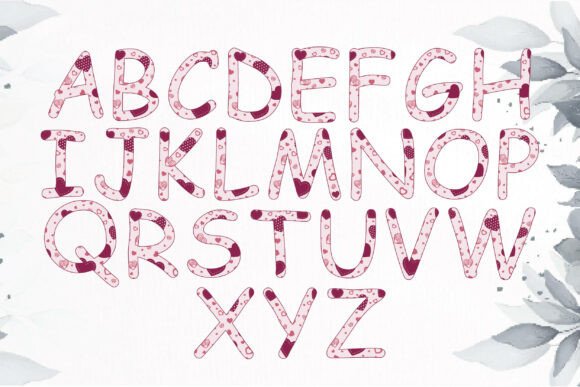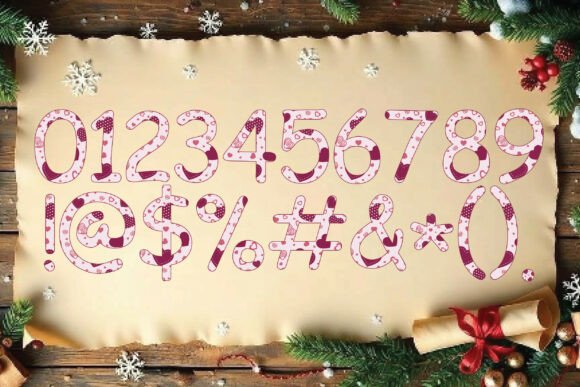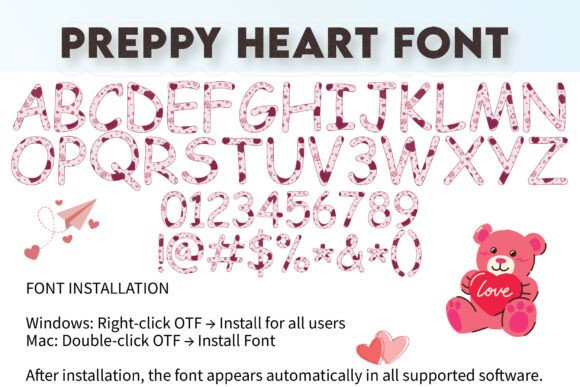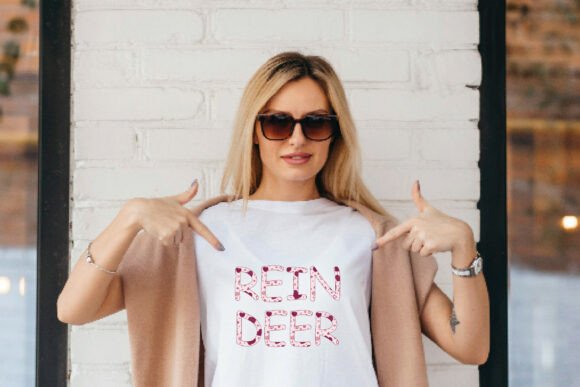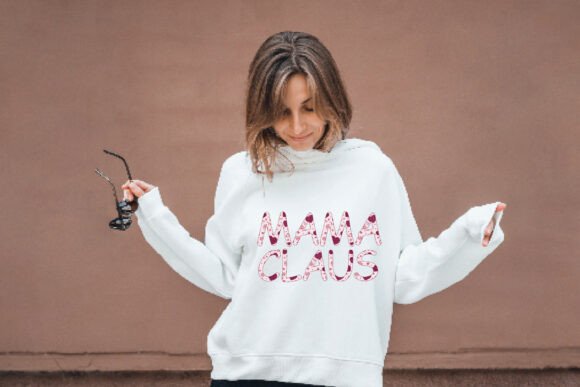
Introduction to Preppy Heart Love Font
๐Ÿ’– Preppy Heart Love Decorative Font โ€“ Cute & Trendy Valentine Alphabet Sweet, stylish, and full of love โ€” the Preppy Heart Love Font brings a trendy preppy vibe to your Valentineโ€™s and romantic designs.
With charming heart details and playful lettering, this font is perfect for cute and love-themed creative projects Each character is intricately designed with a playful mix of hearts, polka dots, and โ€œstitchedโ€ patterns, making the Preppy Heart Love typeface a visual playground for Valentineโ€™s Day projects, nursery decor, and feminine branding.
Key Features of Preppy Heart Love Font
Why Choose Preppy Heart Love Font?